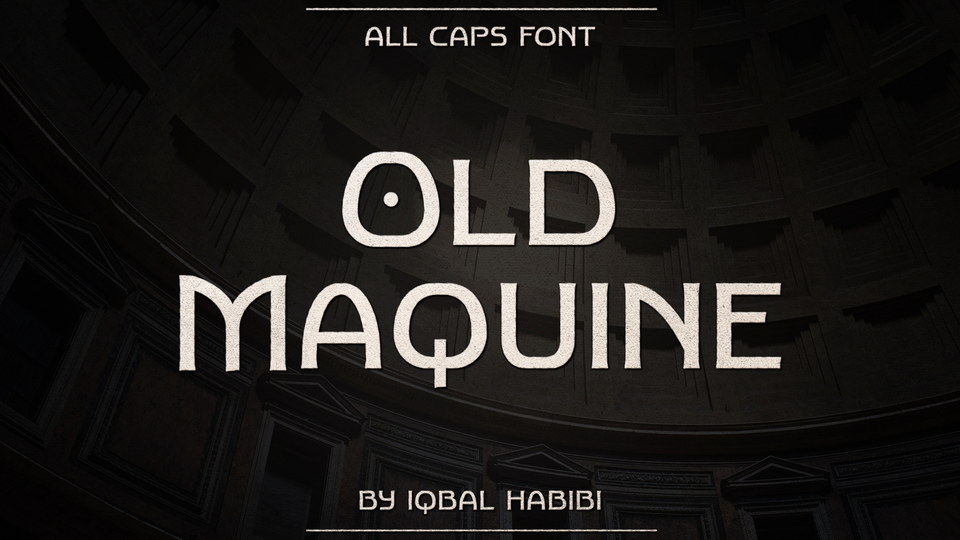
Download Old Maquine font, a decorative sans serif typeface inspired by the old typefaces in 1900s. Old Maquine has clean design and gives the authentic looks.
Designer: Iqbal Habibi